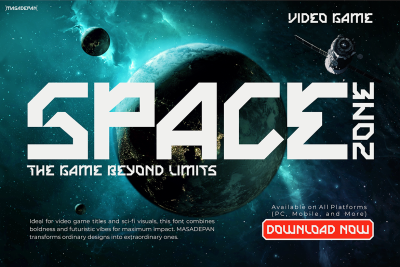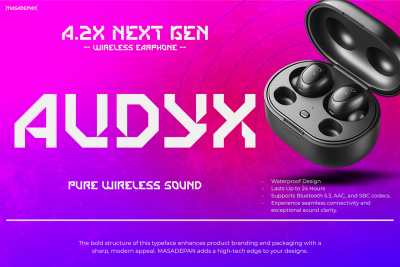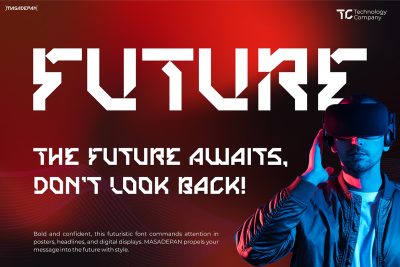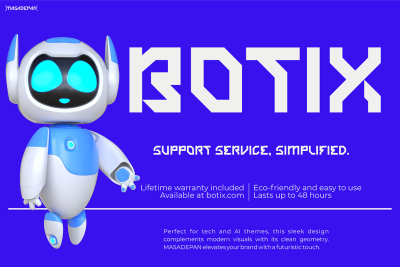
Futuristic Font MASADEPAN offers a sleek and modern style that elevates your design projects to new heights. Inspired by cutting-edge technology and futuristic aesthetics, this typeface merges sharp angles, smooth curves, and clean lines for a refined look. As a result, it reflects innovation and creativity, making it the perfect choice for projects that require a bold, forward-thinking approach.
With its minimalist yet dynamic form, MASADEPAN effortlessly stands out in both digital and print media. Moreover, its geometric structure and modern style enhance readability while ensuring visual impact. Whether you are designing for websites, posters, or branding materials, this font adds sophistication and energy to your text.
In addition, MASADEPAN combines elements of sci-fi design, sleek minimalism, and high-tech precision. Consequently, it creates a unique visual language that resonates with innovation and progress. This makes the font ideal for creative professionals aiming to deliver striking and futuristic visuals.
Futuristic Font MASADEPAN Perfect For
Futuristic Font MASADEPAN is designed for tech brands, designers, and forward-thinking creatives. It works exceptionally well for technology companies, digital startups, and software developers that want to emphasize their innovative edge. For example, businesses can use it for websites, app interfaces, and corporate branding to establish a sleek, professional identity.
Moreover, MASADEPAN is ideal for creatives working on sci-fi movie posters, futuristic book covers, and game titles. Its bold, clean style adds immersion to visuals, capturing the essence of futuristic storytelling. Additionally, video game developers and UI designers can use this font for HUD displays, in-game text, or menus to create a modern gaming experience.
Digital marketers and content creators will also benefit from this versatile font. Whether youโre crafting social media graphics, ad campaigns, or presentation decks, MASADEPAN ensures your visuals feel fresh and innovative. Furthermore, its futuristic appeal makes it a perfect match for tech expos, product launches, or high-end branding campaigns.
This typeface also shines in product packaging for industries such as electronics, automotive, and futuristic fashion. By incorporating MASADEPAN, brands can communicate cutting-edge design and attract forward-thinking consumers. Additionally, event organizers can use it to elevate promotional materials for conferences, expos, and seminars.
Ultimately, Futuristic Font MASADEPAN is the ideal choice for designers, marketers, and innovators who need a font that communicates progress, creativity, and modernity. With its sharp precision and futuristic charm, MASADEPAN ensures your work stands out and leaves a lasting impression.